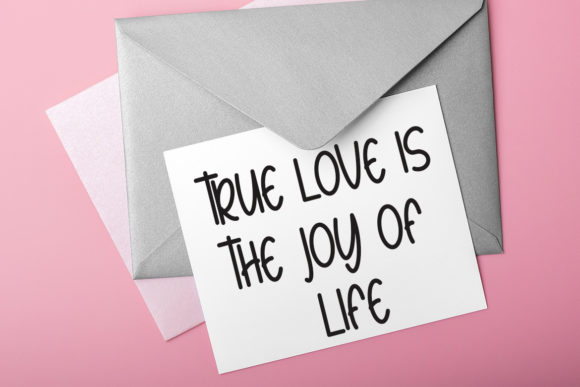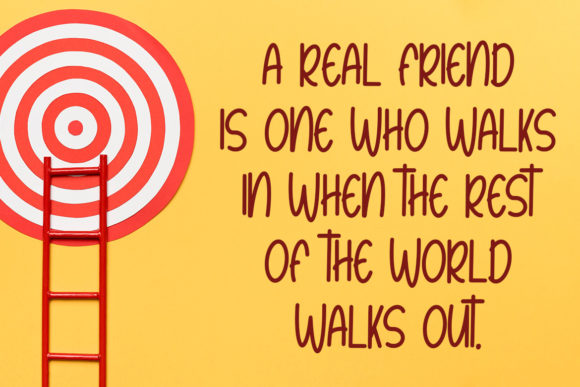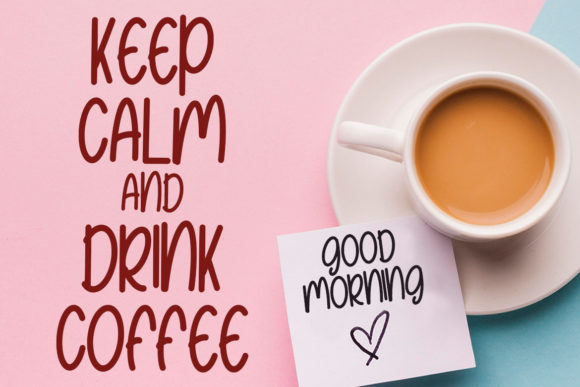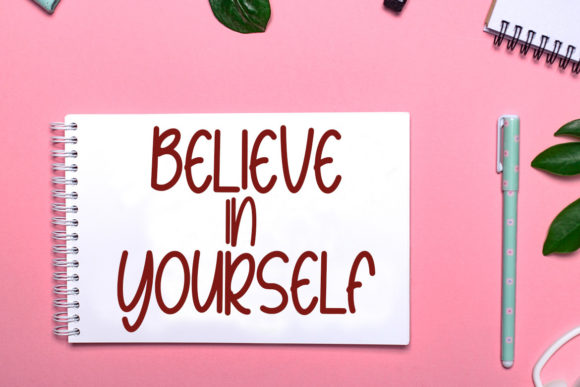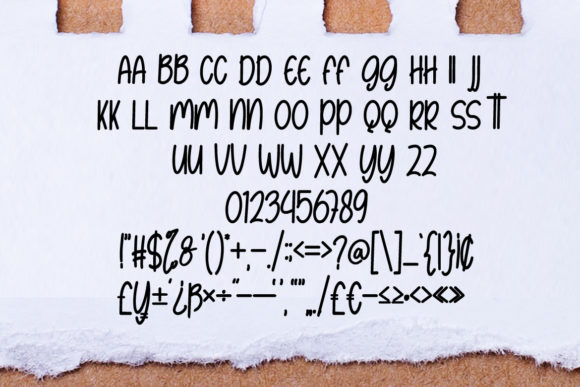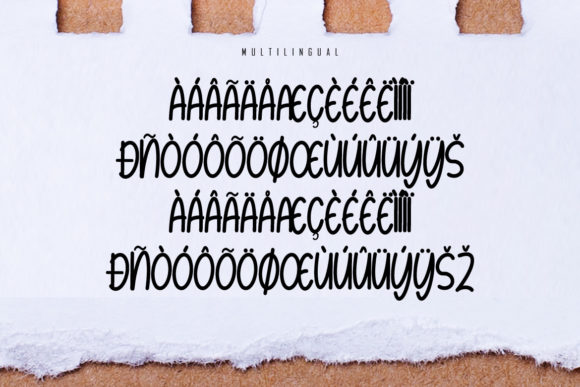
Introduction to Rogera Font
Remember the countless hours spent in the classroom, surrounded by chalkboard quotes and colorful teaching materials? The nostalgia of those days often inspires us to create something unique and engaging for our own design projects. For designers seeking a high-quality, authentic touch, the Rogera Font is an ideal addition to their design resource library.
With its playful and cute handwritten style, Rogera Font is perfect for adding a personal and realistic feel to your designs. Whether you’re working on a creative project that requires a free download with a transparent background, or simply looking for a versatile font to use in your teaching materials, Rogera Font is an excellent choice. Its unique charm and versatility make it a valuable asset for designers of all levels.
Key Features of Rogera Font
- Features a unique, stylish design that can add a touch of sophistication to any creative project.
Honest Review: Rogera Font
As a designer, I’m always on the lookout for high-quality design resources to elevate my creative projects. Recently, I came across the Rogera Font, and I’m excited to share my honest review with you.
- The font features a unique and modern design that’s perfect for creative projects requiring a touch of elegance.
- The font supports various languages, making it a versatile choice for designers working on international projects.
- The Rogera Font is not ideal for projects requiring a bold, sans-serif font style.
- The font may not be suitable for use in print materials with small font sizes due to potential readability issues.
Tips for Getting the Most Out of Rogera Font
To get the most out of the Rogera Font, experiment with different font sizes, colors, and combinations. You can also use it with a transparent background to create a unique and eye-catching design.
The Rogera Font is perfect for any creative project, including logos, graphics, presentations, and documents. Its high-quality design and transparent background make it a versatile and valuable design resource.